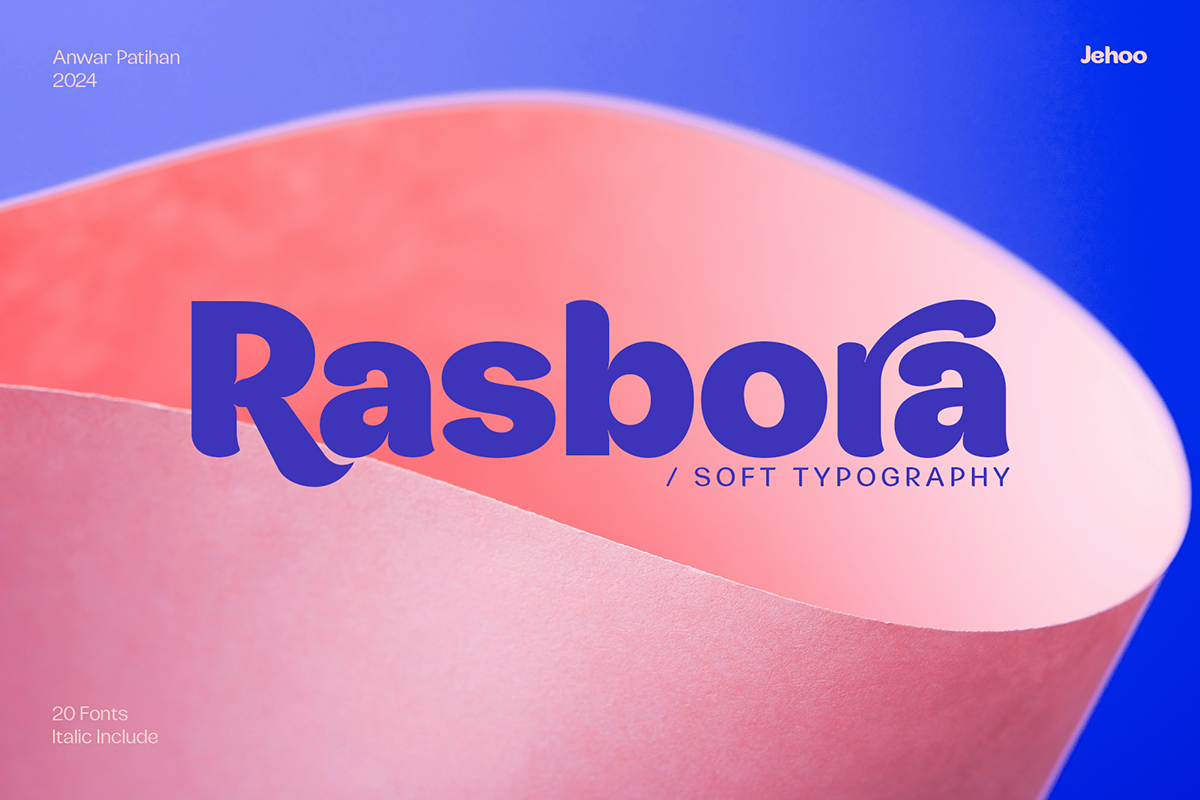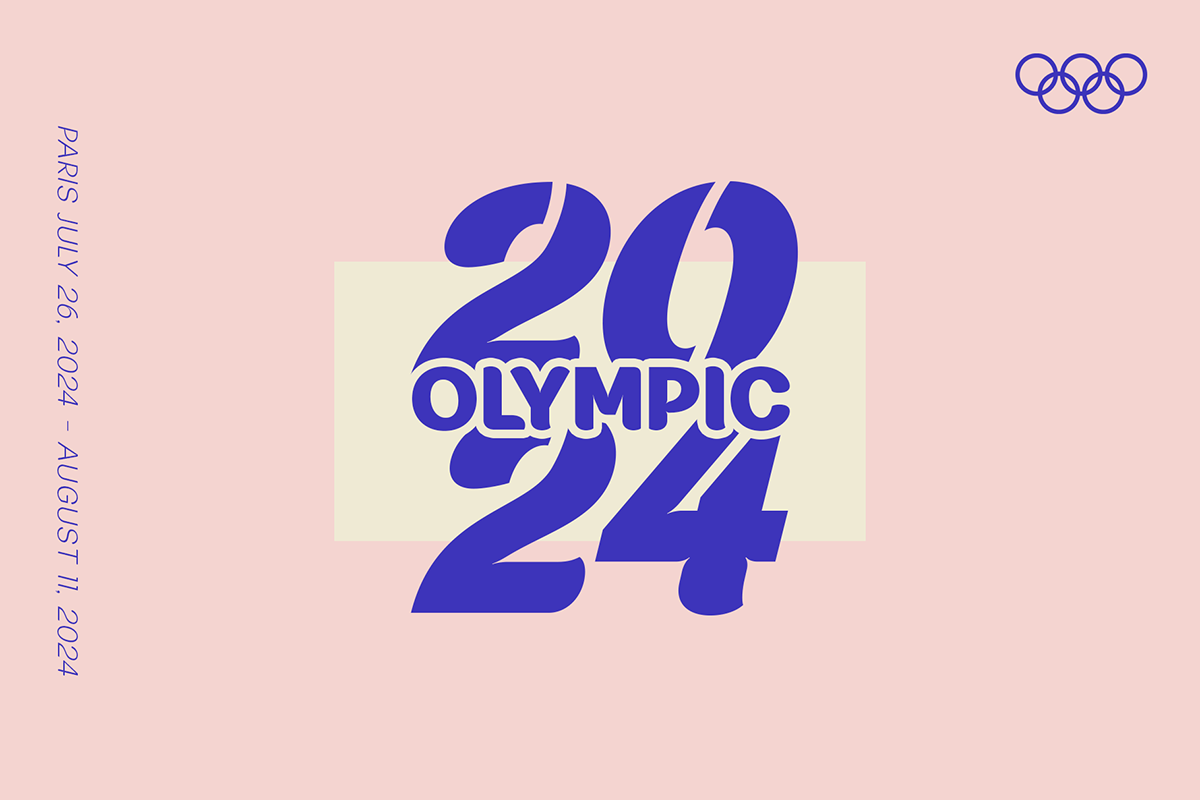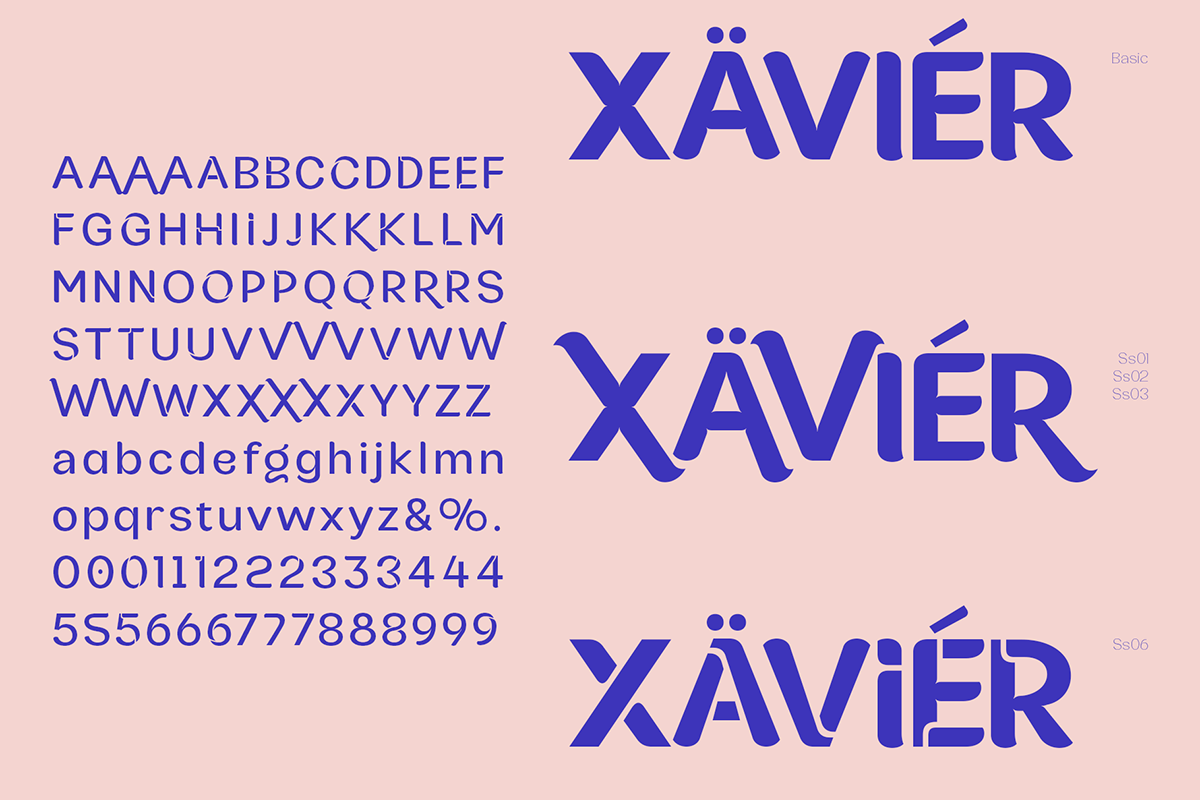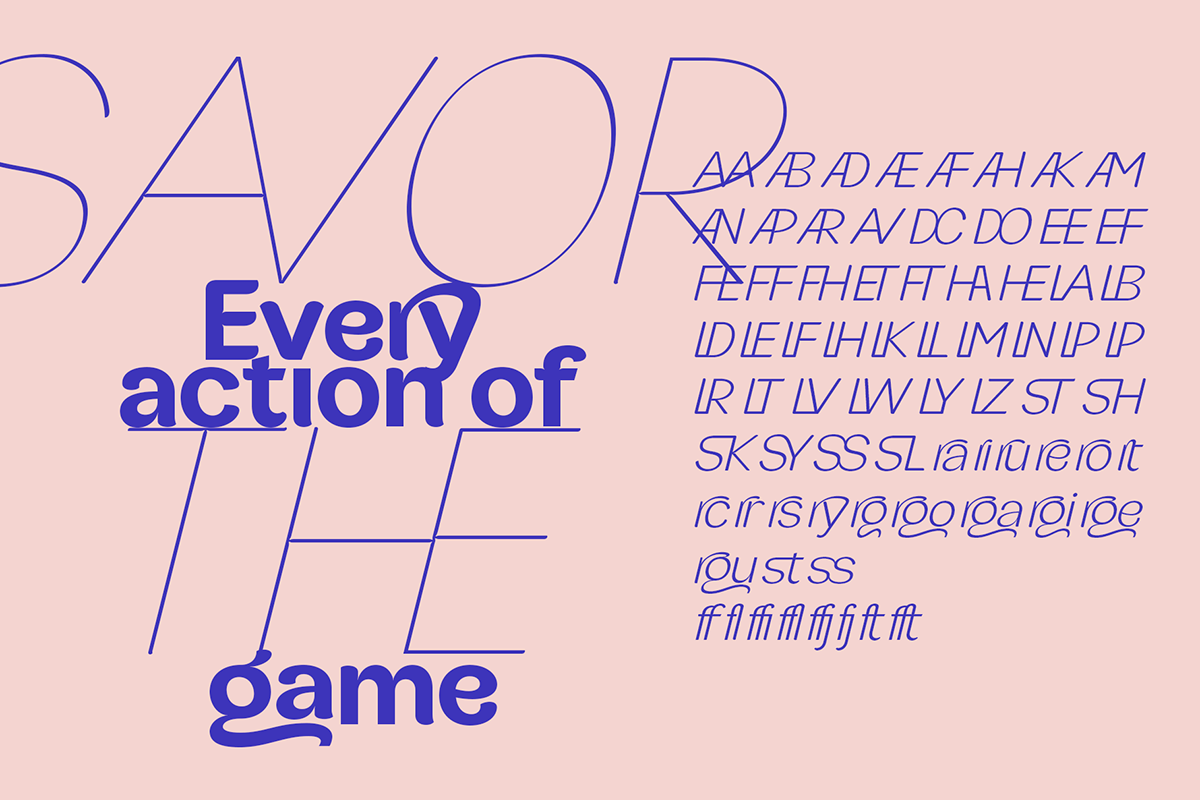
JHC Rasbora – Display Font is a beautifully crafted typeface that exudes a soft and relaxed character. This font features a unique feeling curve in its letterforms. Hence, it gives it a gentle, flowing quality that is both inviting and versatile.
It offers a comprehensive range of 10 weights, from the delicate Thin to the robust Extrablack. Each designed to maintain the font’s inherent softness while providing varying degrees of emphasis and impact. Accompanied by matching italics for each weight, JHC Rasbora ensures a harmonious blend of standard and slanted styles. Its versatility is further enhanced with support for stylistic alternates and discretionary ligatures, allowing designers to customize and refine their typographic designs with ease.
Whether used for headlines, body text, or creative projects, JHC Rasbora brings a relaxed yet polished feel to any design, making it a perfect choice for everything from sophisticated branding to friendly editorial layouts.